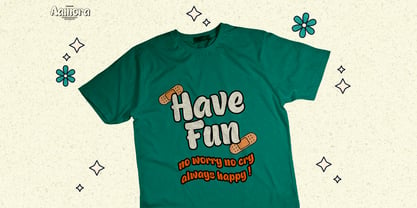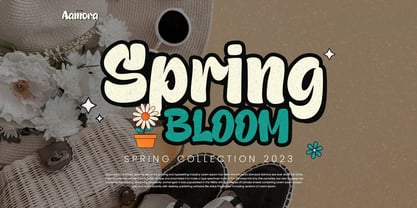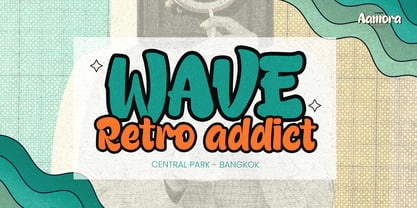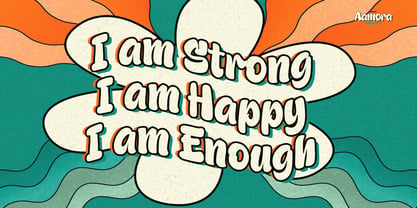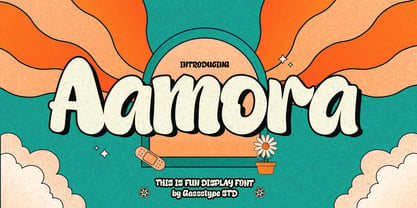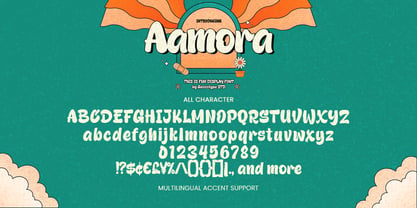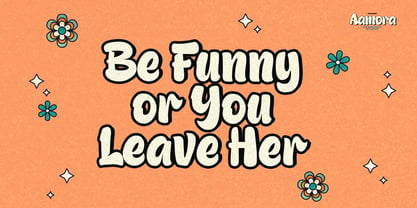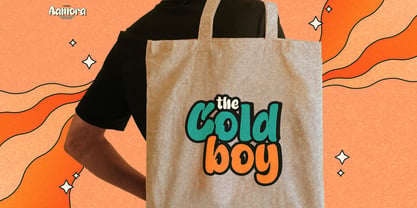
Aamora
by Gassstype
The Aamora Font Family was designed by Abdul Malik Wisnu and published by Gassstype. Aamora contains 1 styles. More about this family
Introducing our new product, Font Aamora! This fun display font features a unique blend of funny and retro styles, ensuring a clear and engaging appearance. Font Aamora is perfect for your next creative project, including logos, printed quotes, invitations, cards, product packaging, headers, logotypes, letterheads, posters, and more. This versatile font is ideal for adding a watermark to photography and is perfect for branding, advertisements, product designs, stationery, wedding designs, labels, and special events. With its charming, authentic, and relaxed characteristics, Font Aamora brings a more natural look to your text, making it an excellent choice for anything that needs a handwritten touch.
Designers: Abdul Malik Wisnu
Foundry: Gassstype